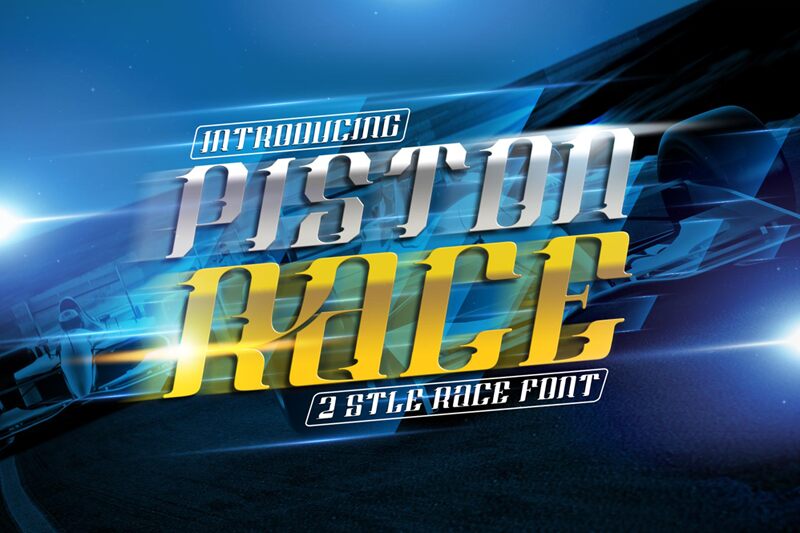
Piston Race Italic is the perfect techno display font for those looking to add a touch of speed and adrenaline to their projects. Designed by Alit Design, this semi-bold racing font features sleek, angular lines that give any design a high-energy edge. Whether you're designing a logo for a motorsports team, creating dynamic social media graphics, or crafting eye-catching headlines for a magazine spread, Piston Race Italic is the ideal choice. With its bold and daring style, this font is sure to make your designs stand out from the crowd and leave a lasting impression on your audience.